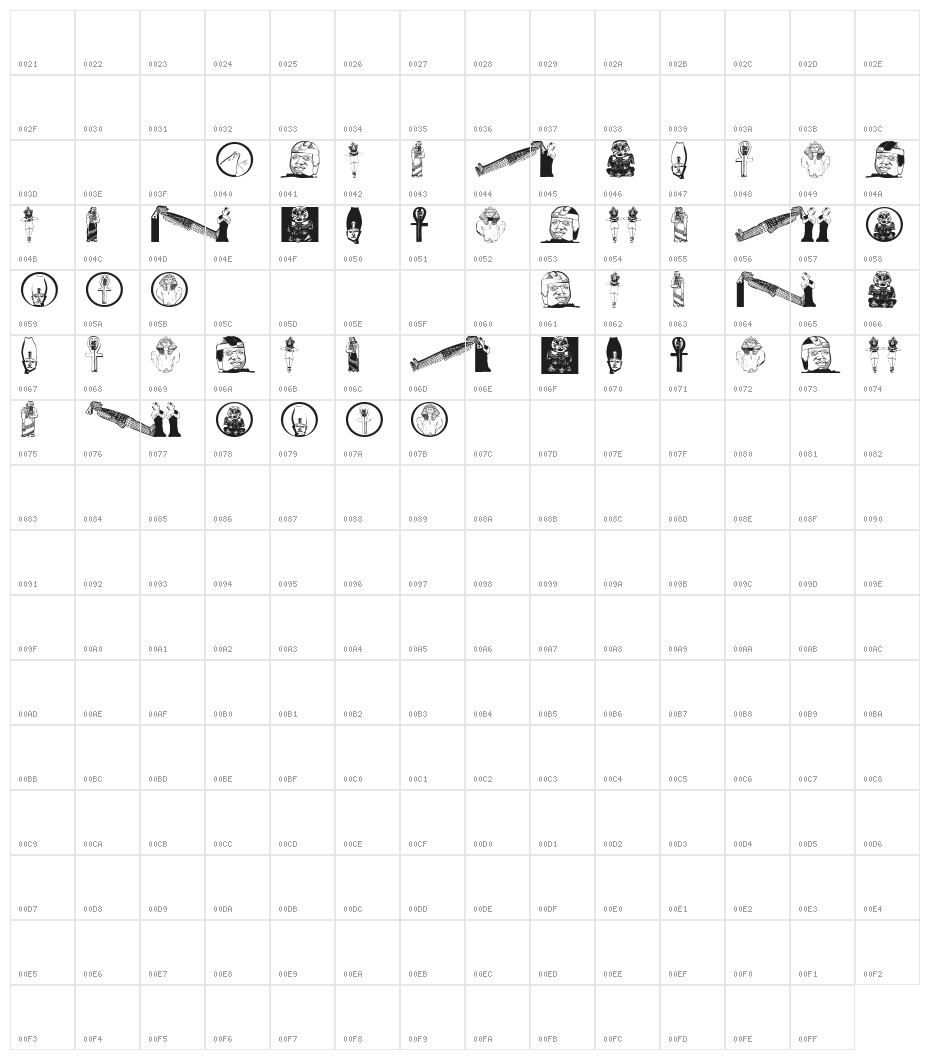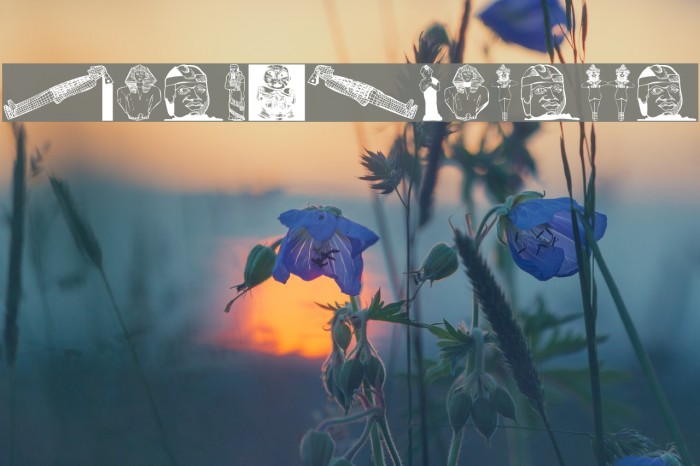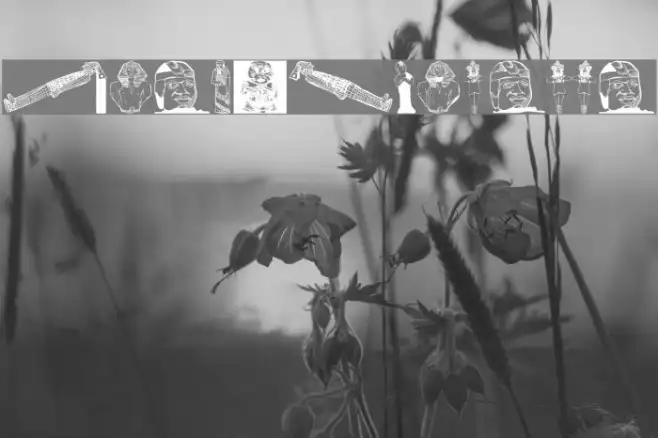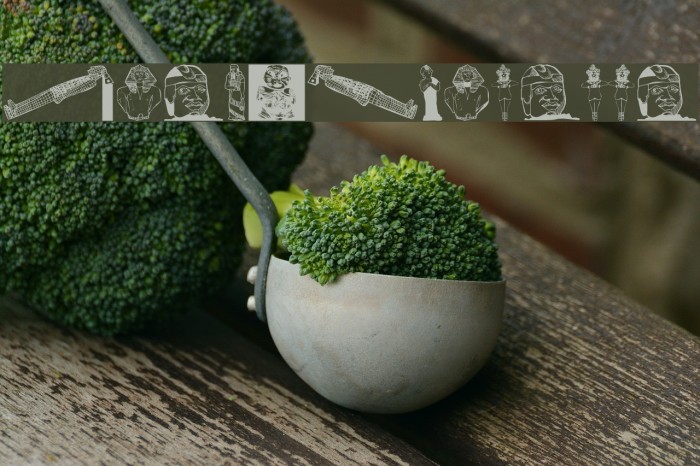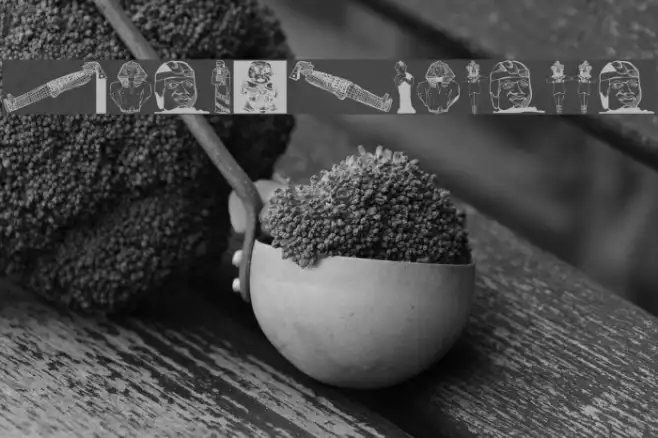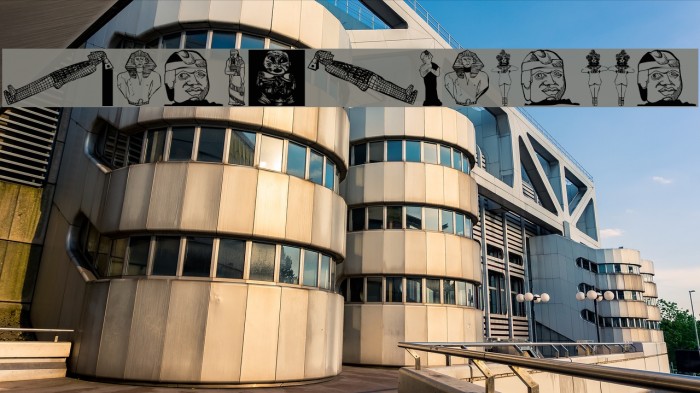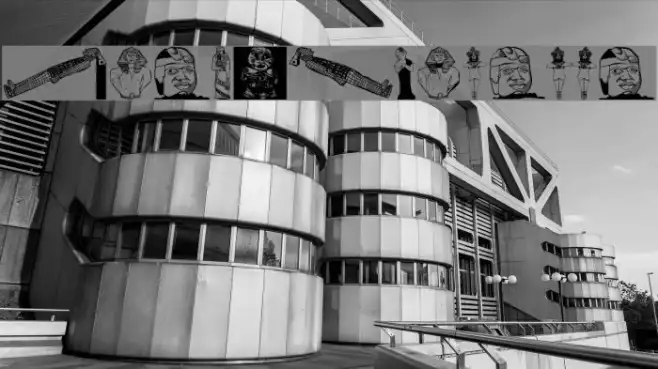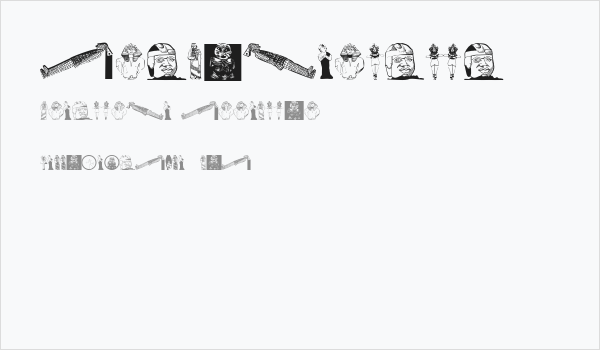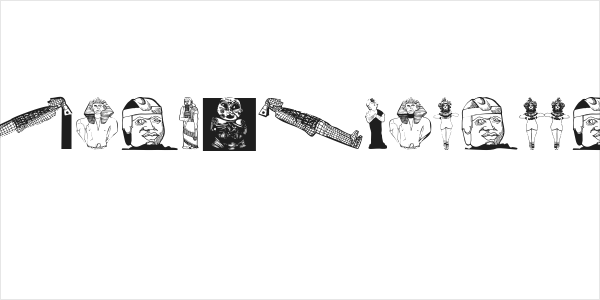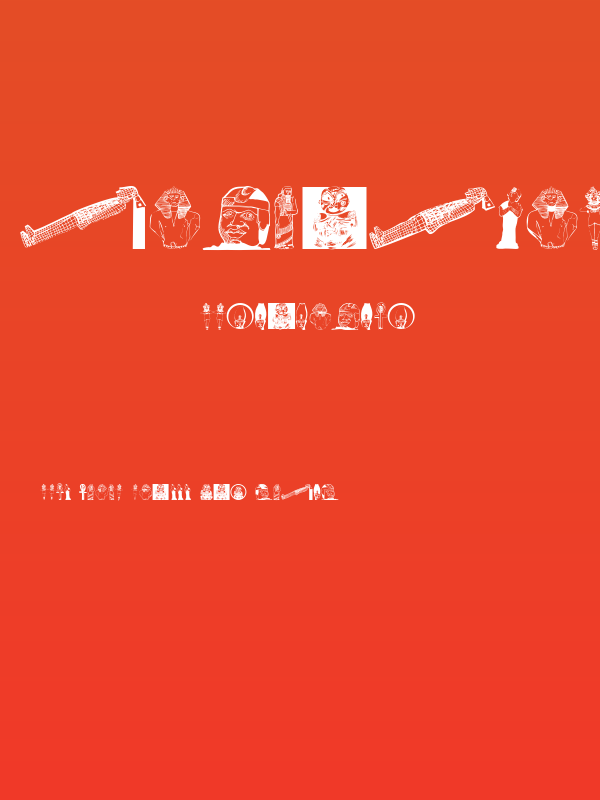
DiscoverBats Font
DiscoverBats Description
A highly decorative and illustrative font featuring detailed drawings of ancient Egyptian figures, artifacts, and symbols in place of traditional letterforms and numbers. Each character is represented by a unique, intricate illustration, making the set visually rich and thematic.
| Overall Style | Decorative, Thematic, Illustrative |
| Use Case | Logos, Headlines, Themed graphics, Educational displays |
| Proposed Projects | Themed posters, educational materials, museum exhibits, event invitations, decorative titles. |